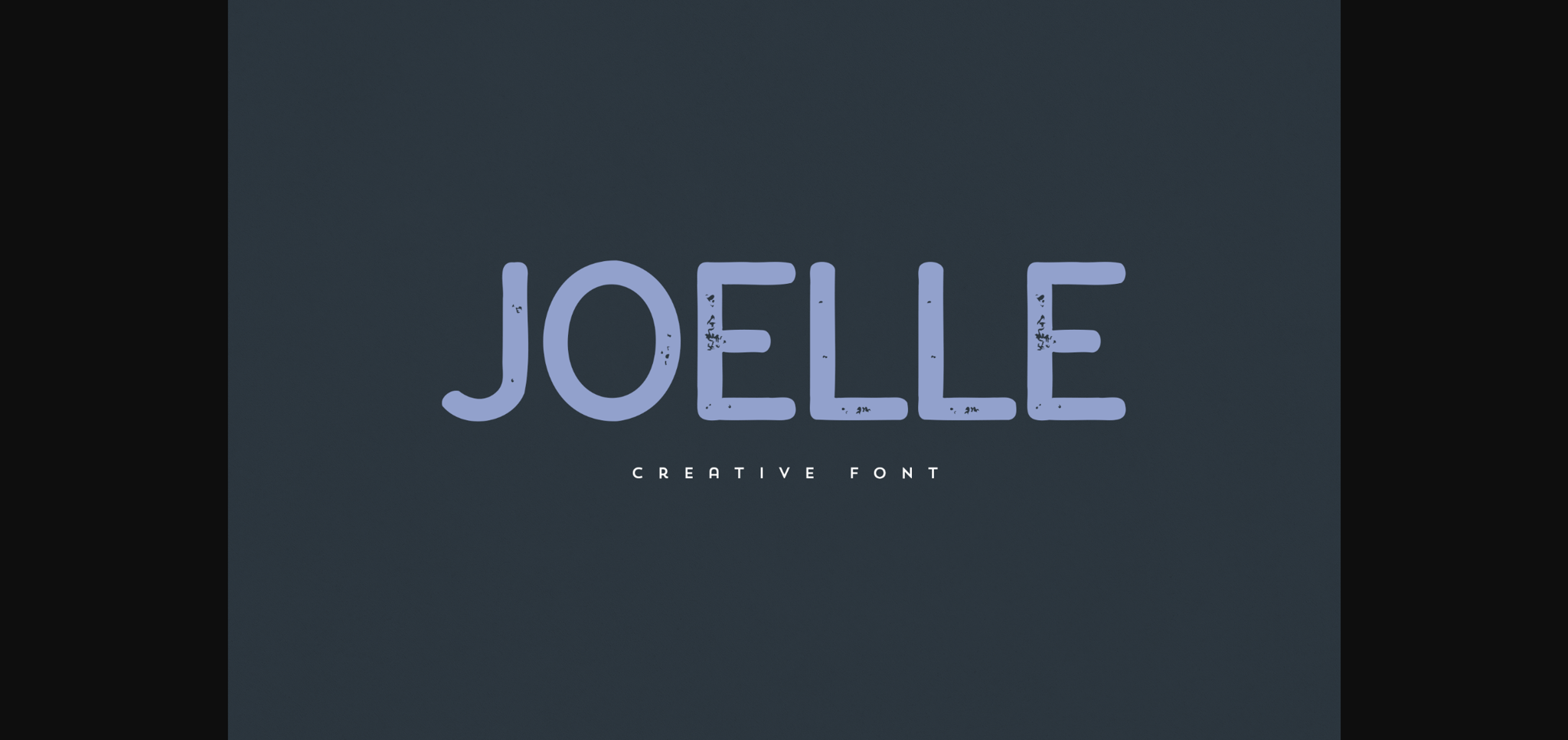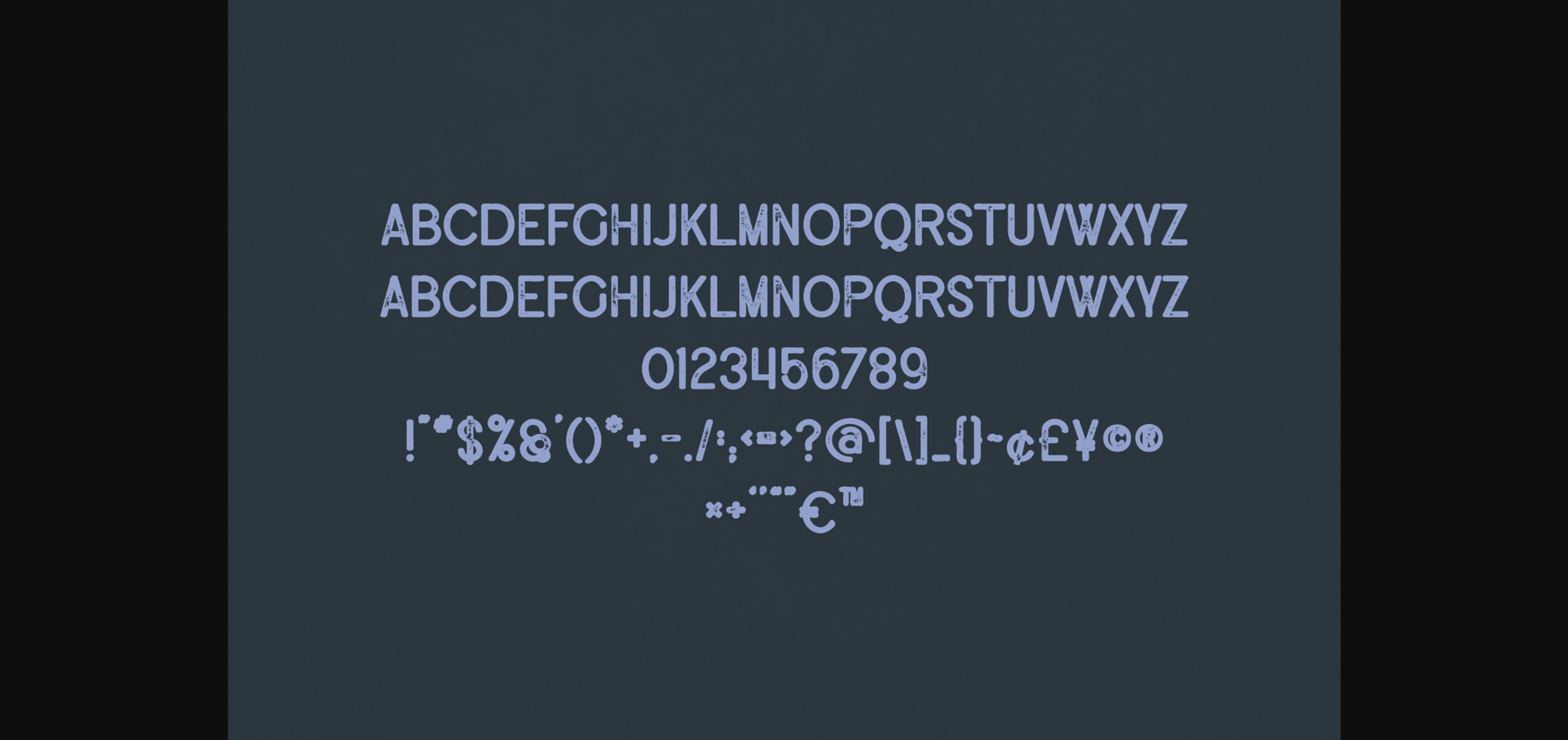
About Joelle Font
Joelle is an elegant and versatile font that will make your typography truly unique! It will enchant every logo, branding, headline, or plain text!